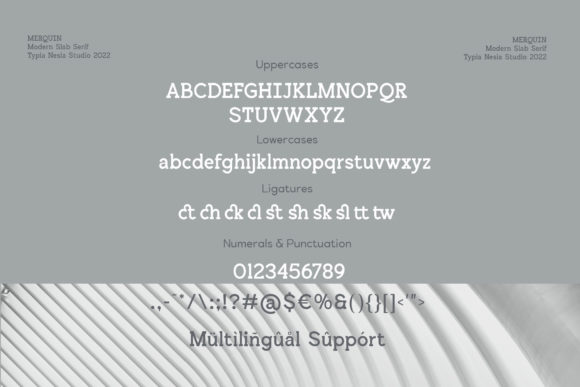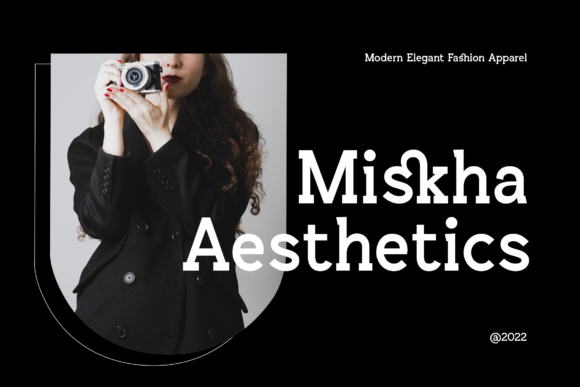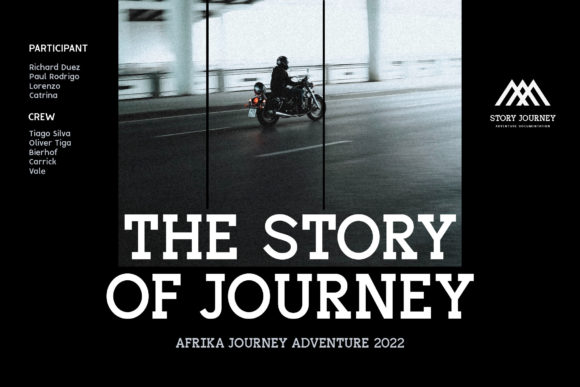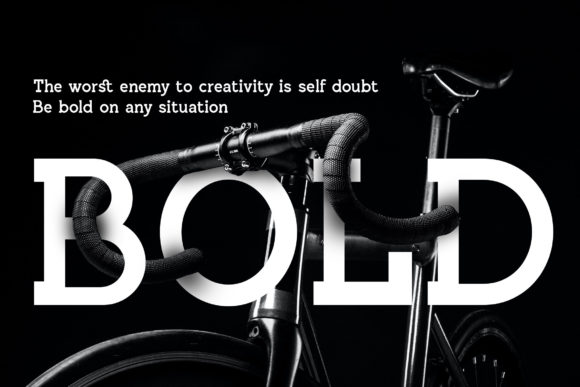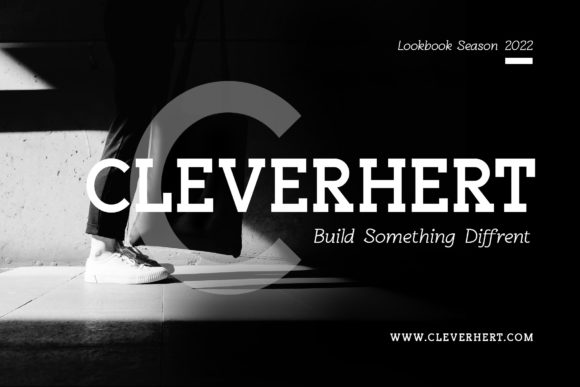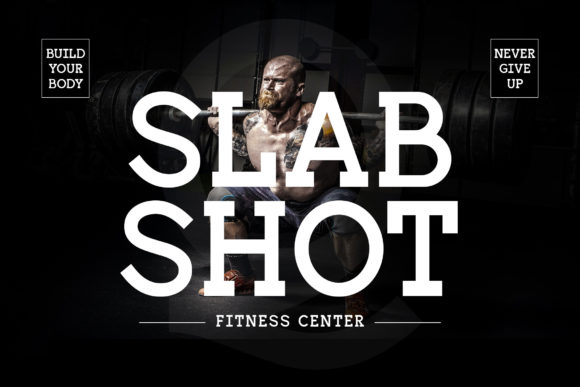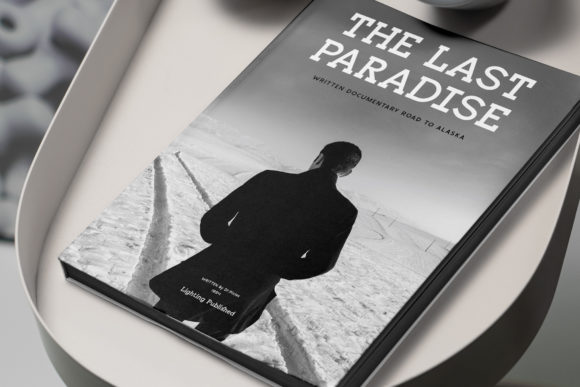
Merquin Font
MERQUIN FONT SPECIMEN
Introducing Merquin, a vintage and bold slab serif font that exudes strength, confidence, and dynamism. With its unique style and impactful letterforms, Merquin adds a touch of stylish character to your designs, making them visually captivating and memorable.
Merquin’s vintage and bold slab serif design sets it apart as a font that commands attention. Its robust letterforms and distinctive serifs convey a sense of strength and authority. Whether used for headlines, logos, or other design elements, Merquin adds a strong and confident presence that grabs the viewer’s attention.
The vintage nature of Merquin adds a touch of timeless appeal to your designs. It carries the essence of classic typography, evoking a sense of nostalgia and elegance. Merquin’s boldness and unique character bring a vintage charm that adds depth and sophistication to your visual compositions.
When applied to your designs, Merquin becomes a powerful tool for creating a strong visual impact. The combination of its bold letterforms and vintage aesthetics creates a dynamic and eye-catching result. Whether you’re working on posters, packaging, branding materials, or any other design project, Merquin adds a stylish character that captures attention.
Merquin’s versatility allows it to be suitable for various design contexts. Its boldness and strong presence make it a great choice for projects that require a standout typography. Whether you’re aiming for a retro-inspired look, a vintage logo, or a bold statement, Merquin’s unique style enhances the overall visual impact.
In summary, Merquin is a vintage and bold slab serif font that adds a stylish character to your designs. Its strong, confident, and dynamic appearance ensures that your message is delivered with impact. Embrace Merquin and let its vintage charm and boldness elevate the visual appeal of your designs, creating a lasting impression on your audience.